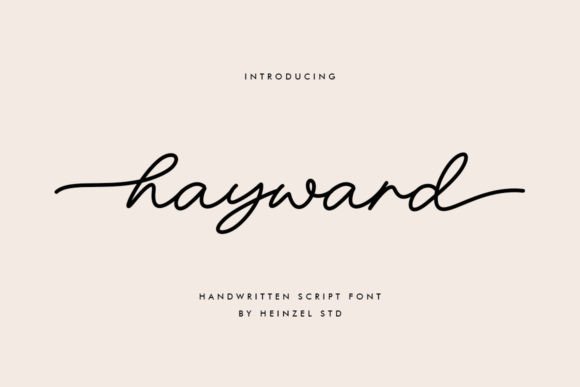
Unleash the artistry of Hayward Font, a handwritten script treasure that weaves a tale of captivating elegance into your design tapestry. Its authentic and organic letterforms dance across the digital canvas, leaving a trail of charm and warmth in their wake. As you craft your designs with Hayward, you'll discover a world where words take on a life of their own, whispering messages of love, joy, and timeless beauty.
Hayward Font's captivating curves and sweeping strokes evoke the grace and fluidity of a master calligrapher's hand. Each letter is a work of art, meticulously crafted to convey a sense of authenticity and genuine connection. As you type, you'll feel as though you're writing with a quill pen, ink flowing effortlessly onto parchment.
Immerse yourself in the allure of Hayward Font's meticulously crafted swashes and delicate ligatures. These embellishments dance around the letters, adding a touch of whimsy and sophistication to your designs. With Hayward, you'll have the power to transform ordinary text into breathtaking masterpieces, leaving your audience spellbound.
Hayward Font's versatility extends far beyond its undeniable beauty. This font is a chameleon, effortlessly adapting to a myriad of design projects. Whether you're crafting logos, branding materials, wedding invitations, or social media posts, Hayward seamlessly blends with your vision, enhancing it with a touch of elegance and charm.
With Hayward Font, you can unlock a realm of endless creative possibilities. Imagine crafting bakery websites that exude warmth and charm, inviting customers to indulge in delectable pastries and handcrafted breads. Create wedding invitations that capture the essence of love and romance, leaving guests in awe of your impeccable taste. Design logos that speak volumes about your brand's personality, captivating audiences with their timeless allure.
Join the ranks of discerning designers who have succumbed to the allure of Hayward Font. Let your creativity soar as you explore the boundless possibilities of this enchanting script. Embrace the charm, the elegance, and the versatility of Hayward, and watch as your designs transform into works of art that resonate with your audience.